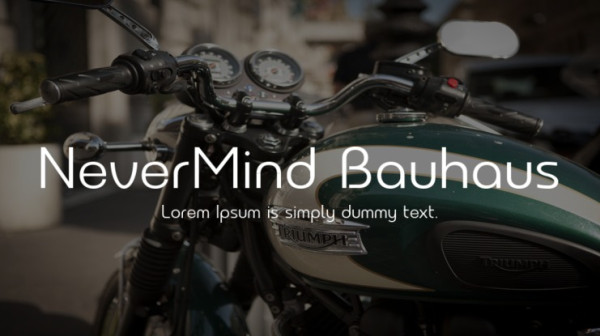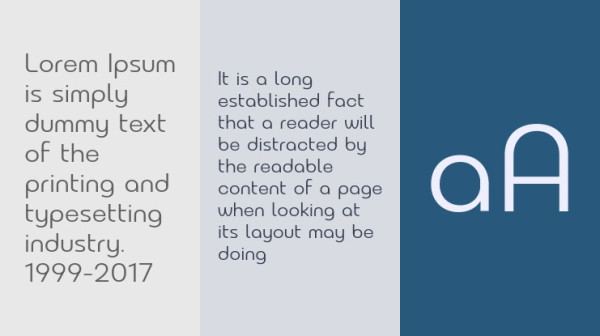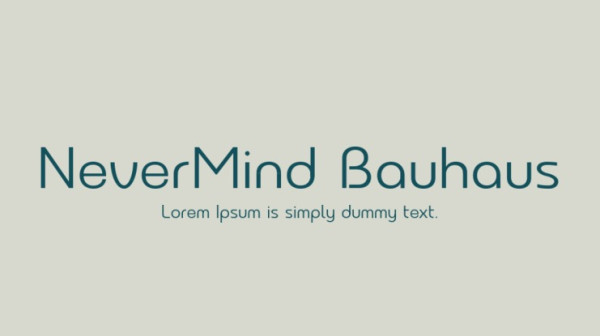
NeverMind Bauhaus Font
Nevermind Bauhaus Font is an tech vibes soft sans display font family that seamlessly merges Bauhaus traditions with contemporary edge. Modern and timeless, it can be used for all types of communication.
NevermindBauhaus is a part of Nevermind font family that currently includes one basic typeface and more than ten different fonts in various styles, including round, handwritten, serif and so on.